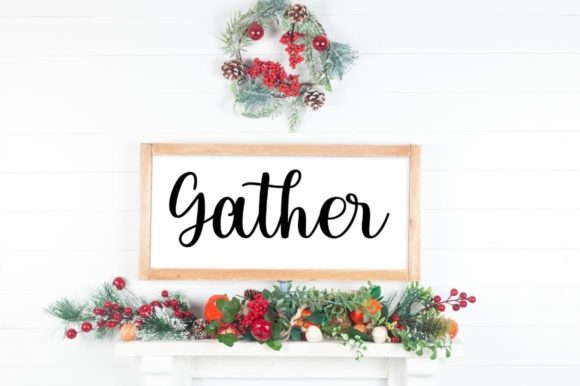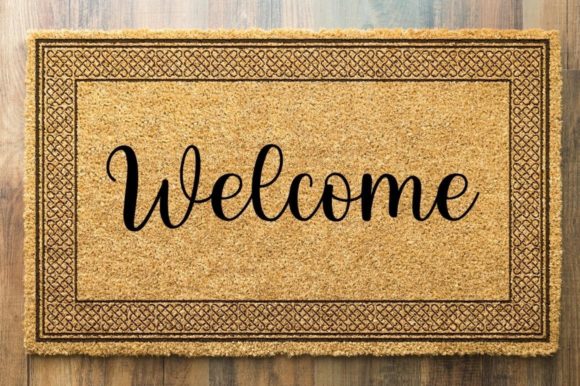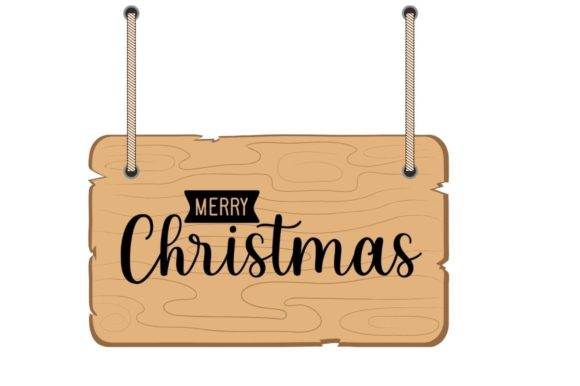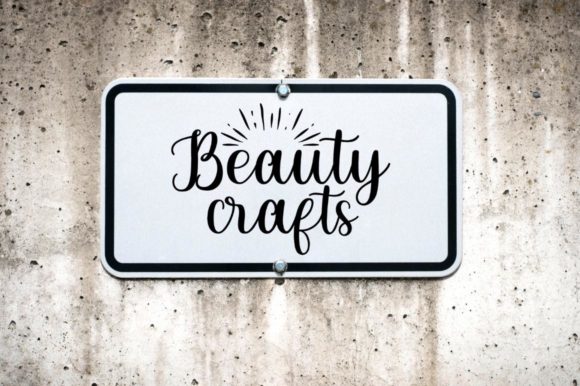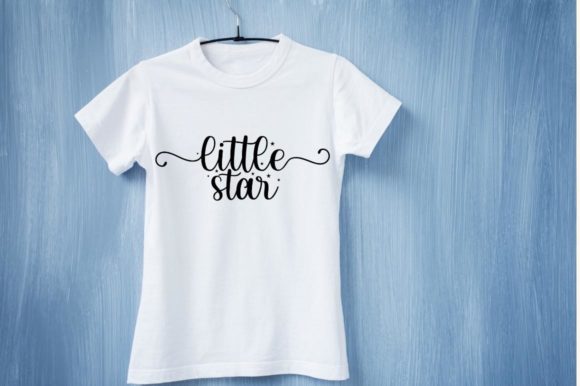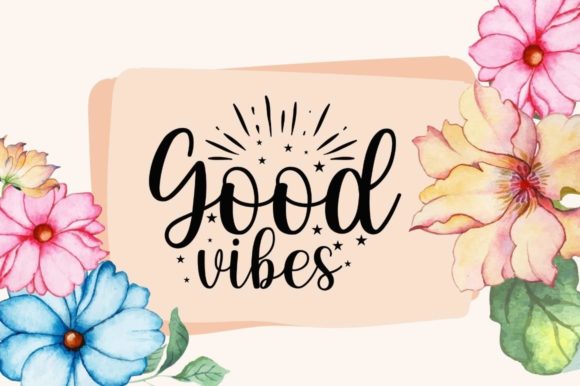
About Black Sweety Script Font
Black Sweety – Lovely Script Font
This font is perfect for SVG designs, shirts, crafts, procreate, Cricut projects, branding, blogs, logos, invitations, and more!